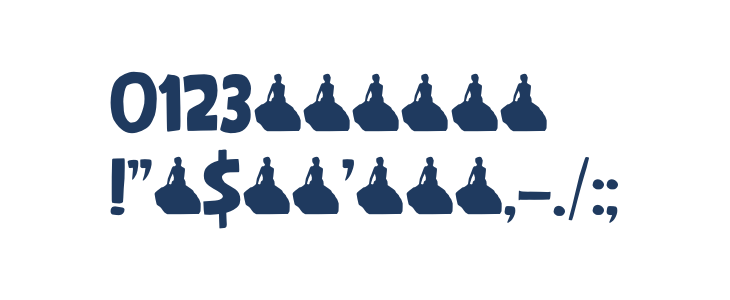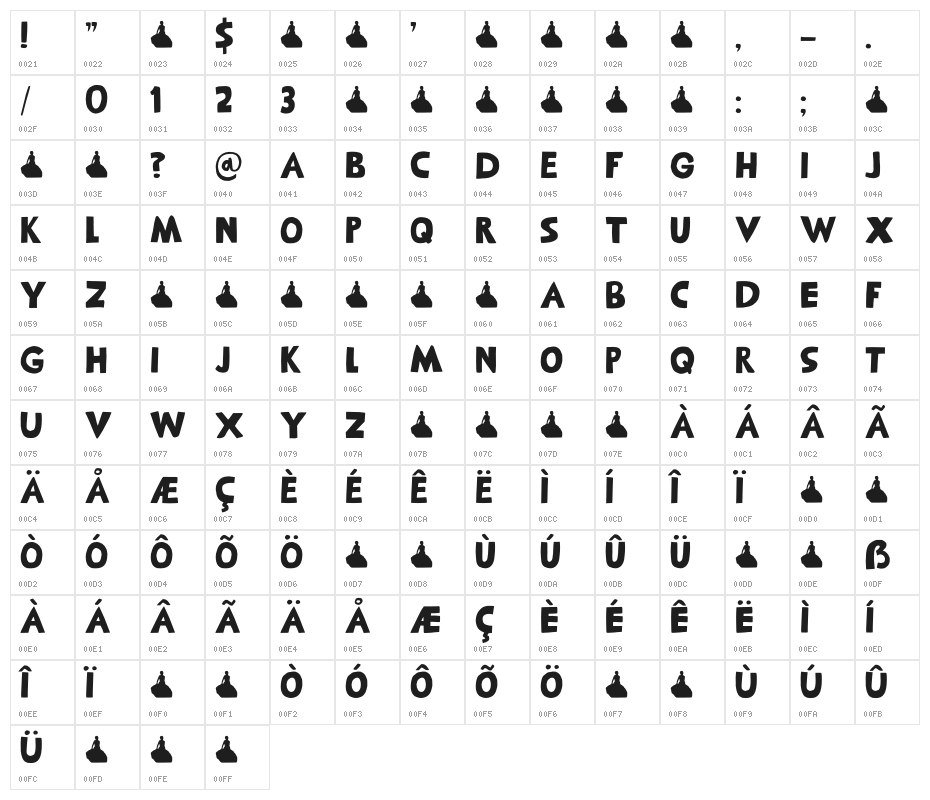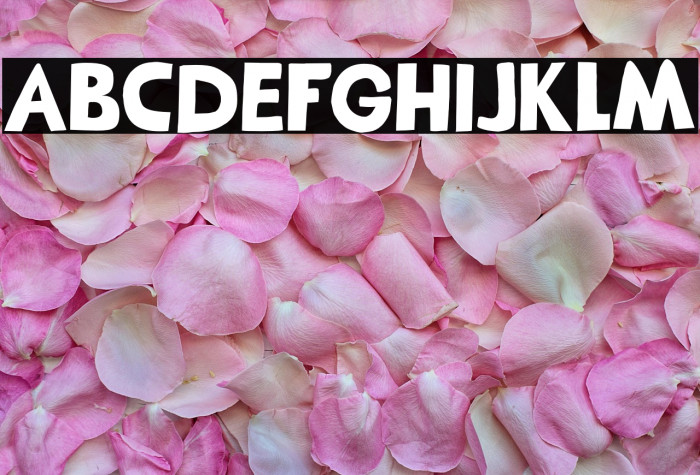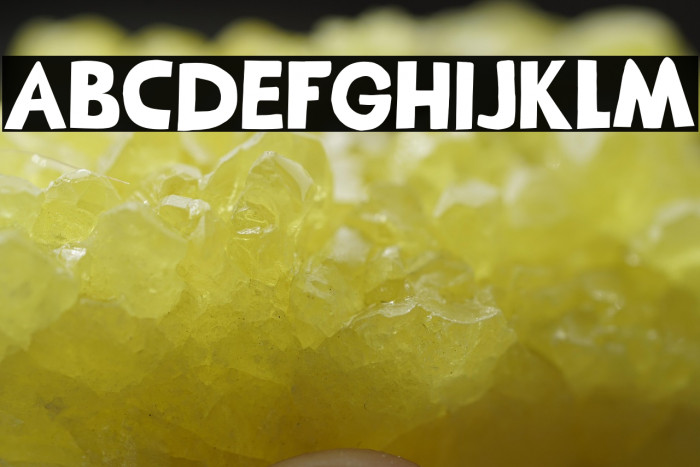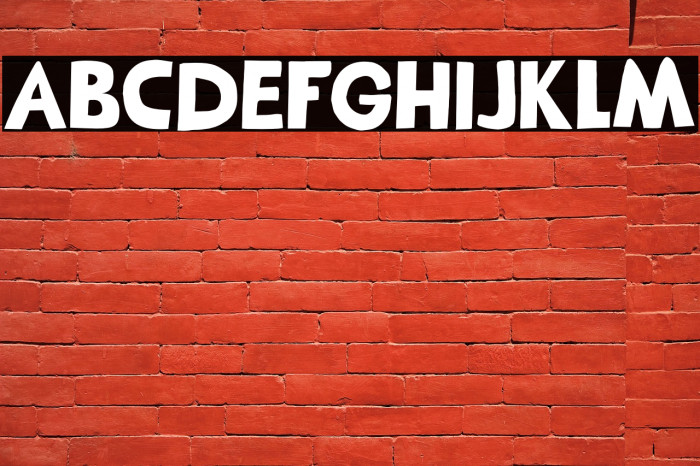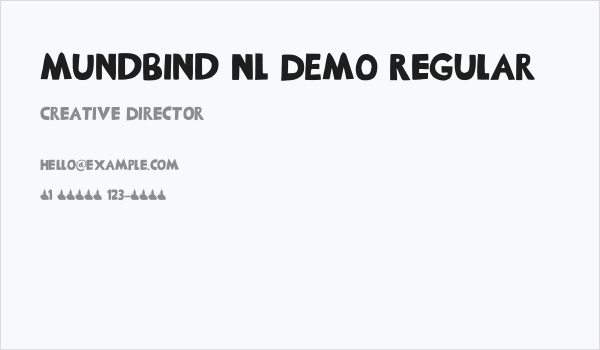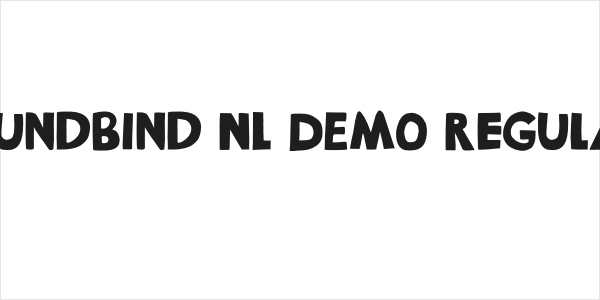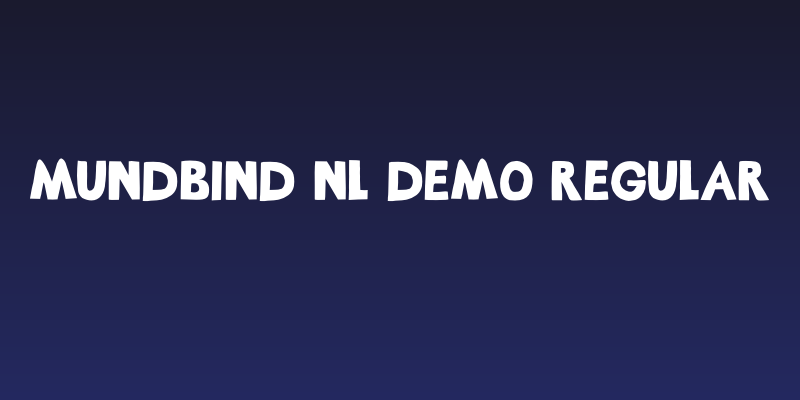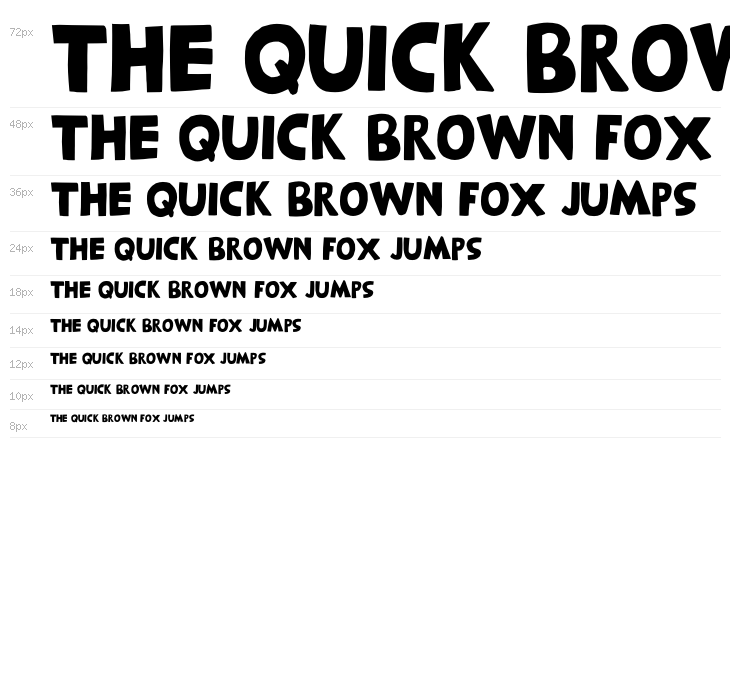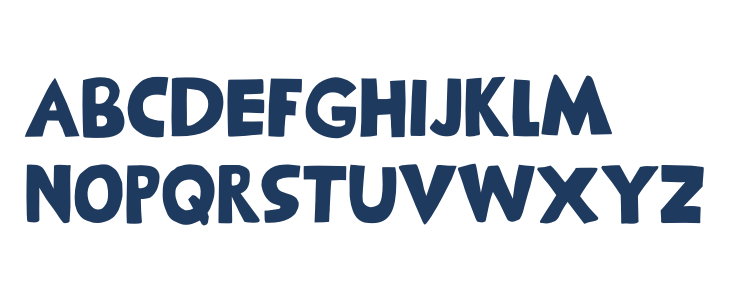
Mundbind NL DEMO Regular Font
Mundbind NL DEMO Regular Description
This font features bold, playful characters with a slightly irregular and hand-drawn appearance. The uppercase letters are prominent and convey a sense of energy and movement, while the lowercase letters maintain a consistent style that complements the uppercase set. The numbers are equally bold and maintain the same playful aesthetic. Special characters are included, adding versatility to the font's usage. The overall design is dynamic and eye-catching, making it suitable for projects that require a fun and informal touch.
| Overall Style | Playful, Informal |
| Use Case | Headlines, Posters, Branding |
| Proposed Projects | Ideal for children's books, playful branding, posters, and informal invitations. |